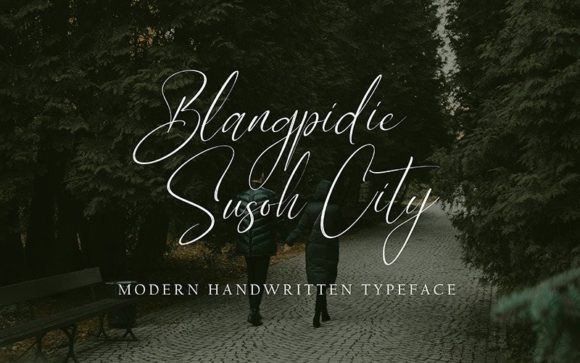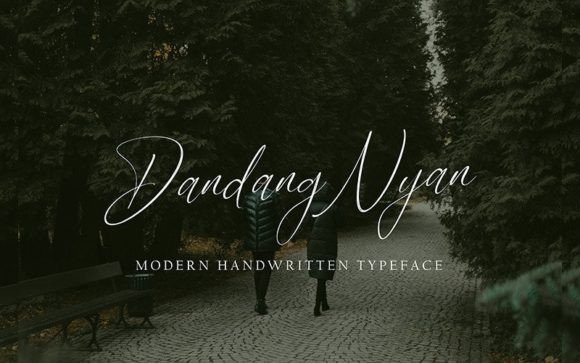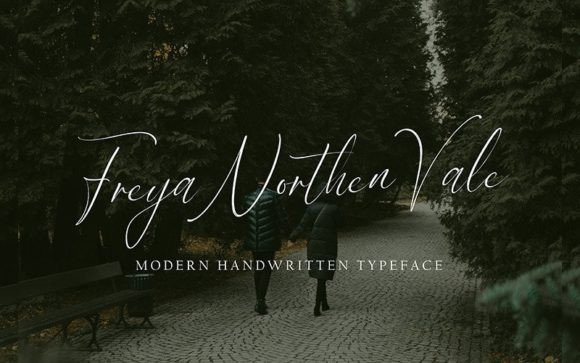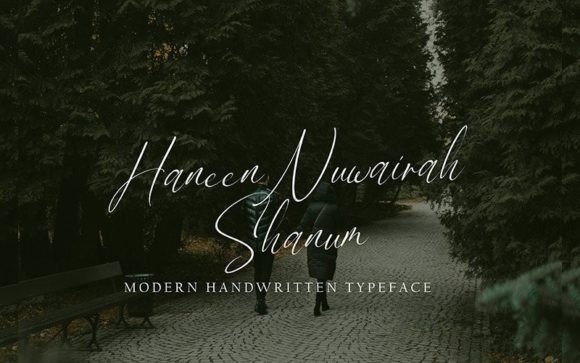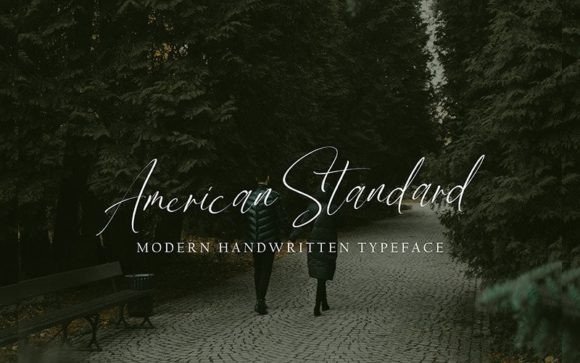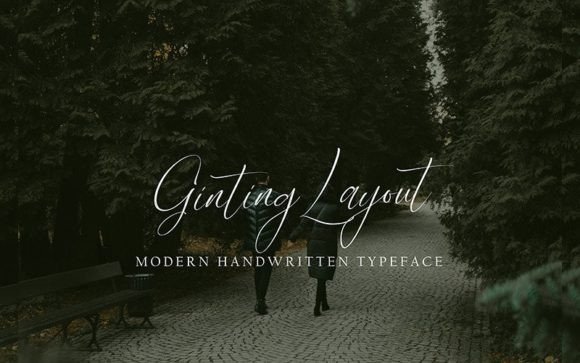
Introduction to Rendering Scarlete Font
Rendering Scarlete offers gorgeous typographic perfect for many different projects such as logos & branding, invitations, stationery, wedding designs, social media posts, advertisements, product packaging, product designs, labels, photography, watermarks, special events, or anything that needs handwriting taste.
Key Features of Rendering Scarlete Font
Why Choose Rendering Scarlete Font?
Rendering Scarlete Font offers exceptional quality and versatility, making it a valuable addition to your design toolkit. Whether you’re creating for personal projects or commercial use, Rendering Scarlete Font delivers professional results.